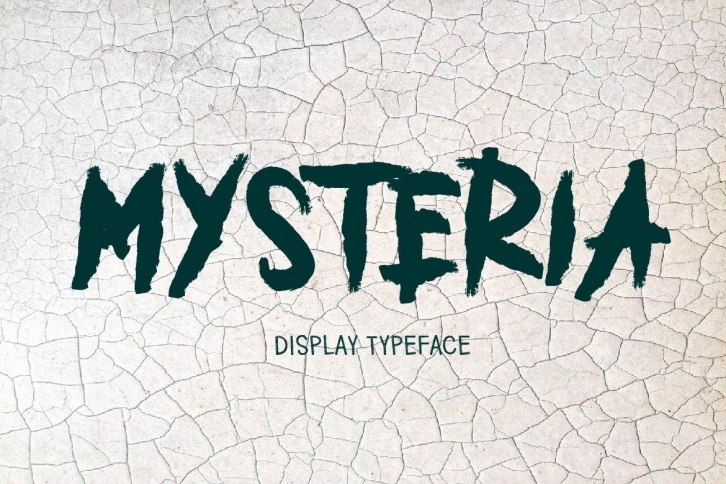
MYSTERIA is a great font that was designed by aminmario. Imagine the amount of combinations you can create using this font! The archive is 16.33 MB and it was released on August 5, 2020. MYSTERIA looks beautiful on wedding invitations, greeting cards, logos, posters, labels, t-shirt designs, logos, business cards and is perfect for use in ink or watercolor works, fashion, magazines, packaging and food menus, children's books and more!